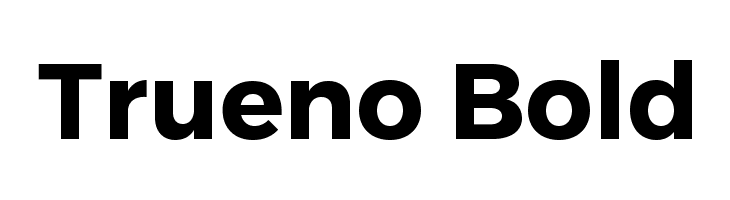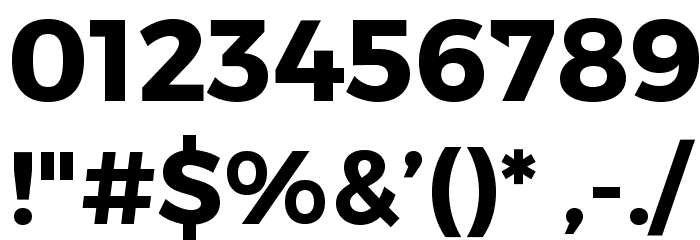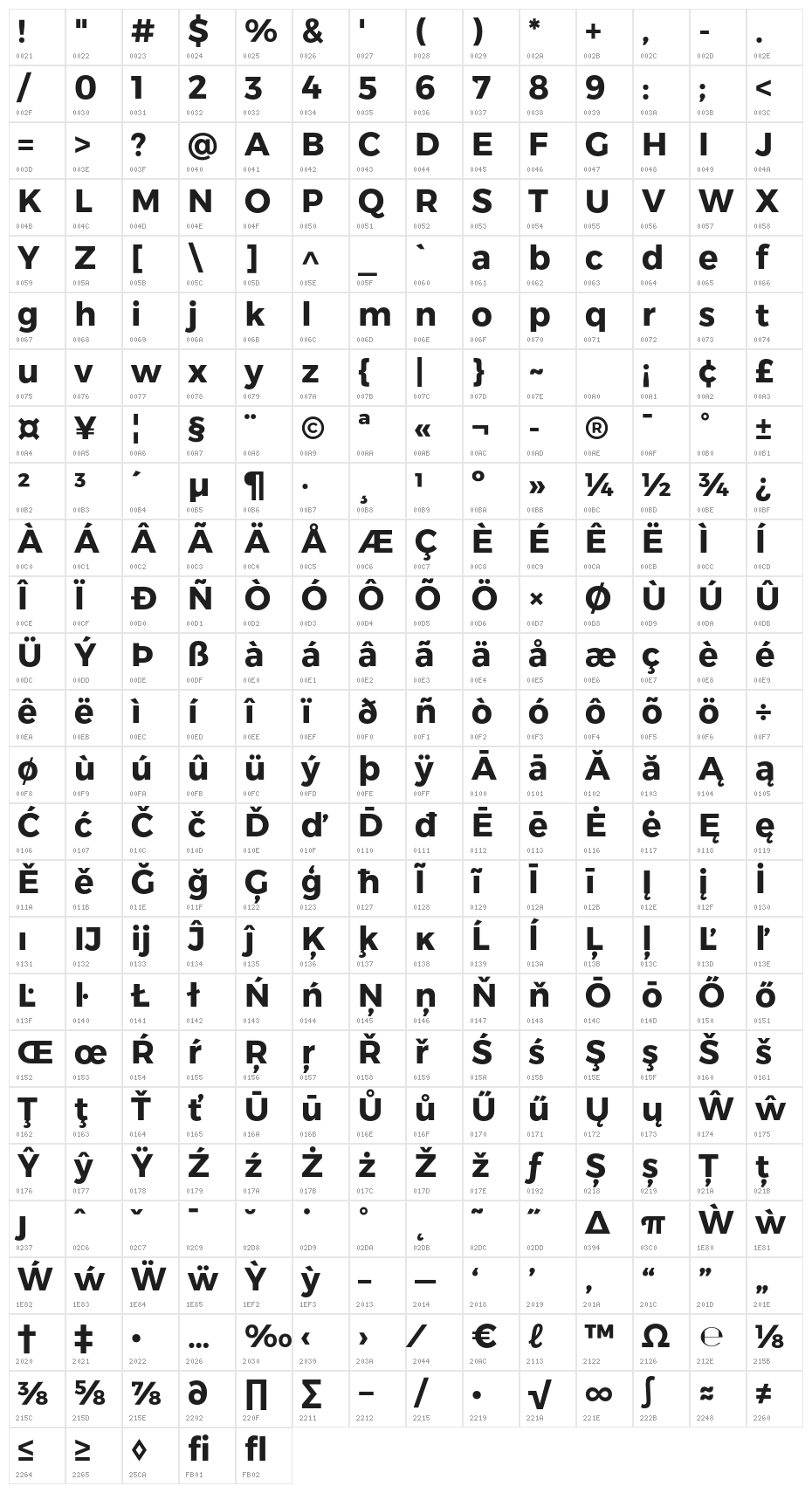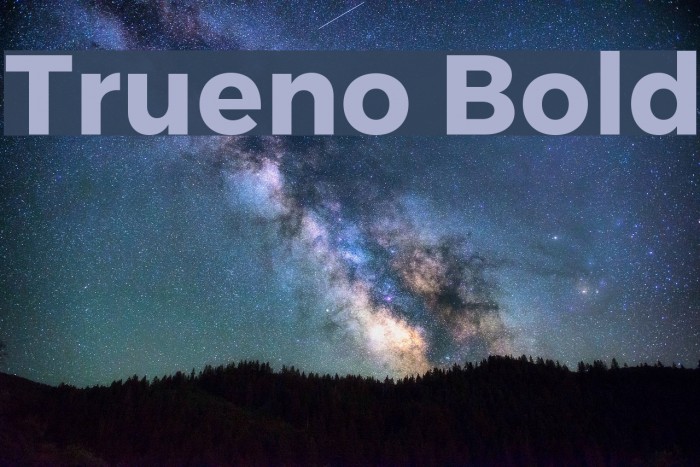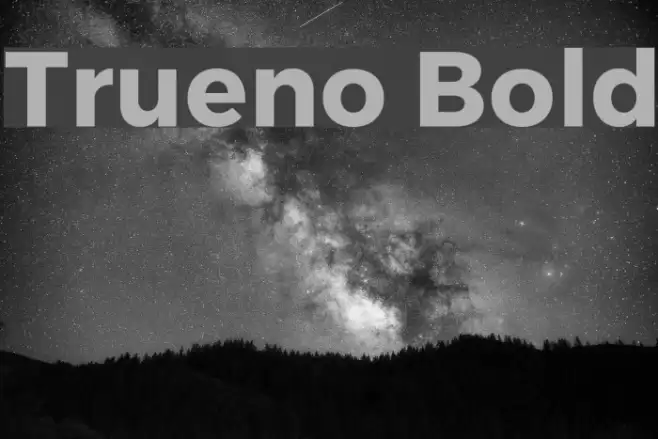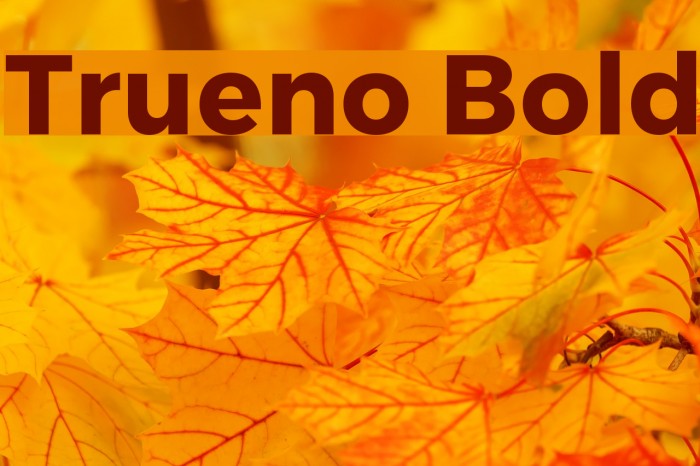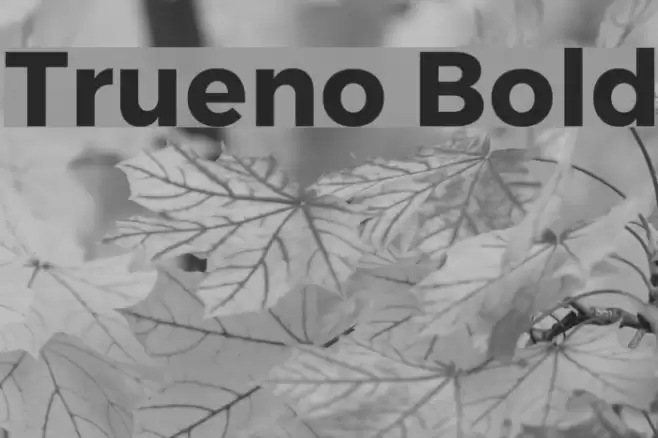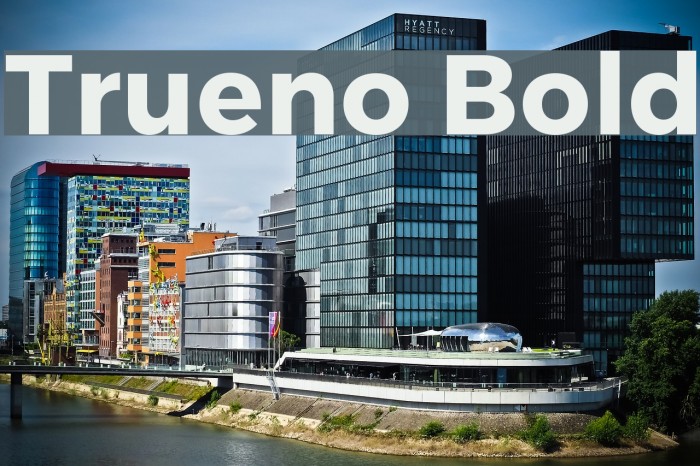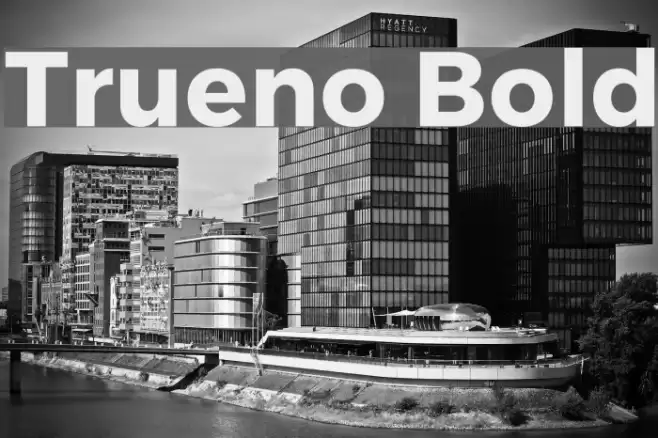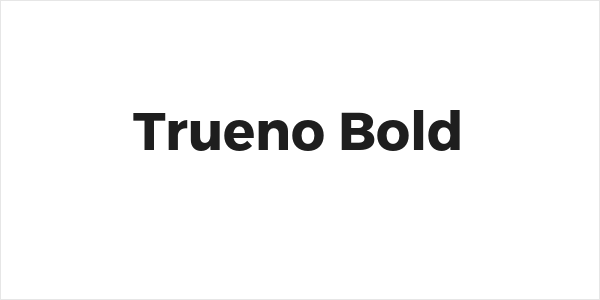
Trueno Bold Font
Trueno Bold Description
This font features a bold and modern sans-serif design, characterized by clean lines and a strong presence. The uppercase and lowercase letters are well-proportioned, with a consistent stroke width that conveys a sense of stability and confidence. The numerals are clear and easily distinguishable, making them suitable for both digital and print applications. Special characters are designed with the same attention to detail, ensuring uniformity across all glyphs. The overall appearance is sleek and professional, making it versatile for various design needs.